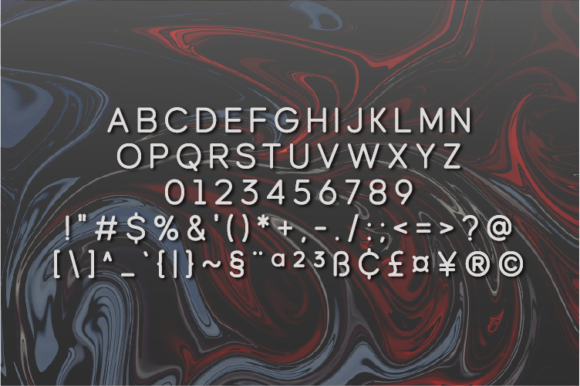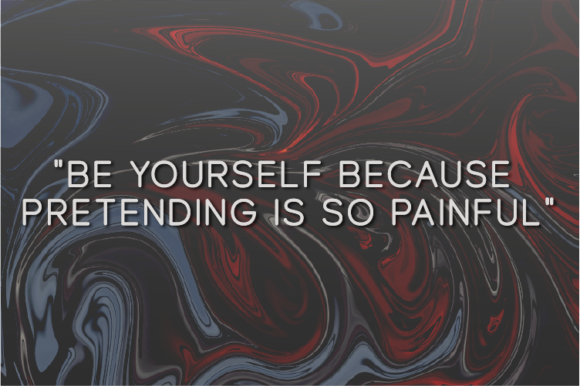
Introduction to Roterline Font
As a designer, there’s nothing quite like the rush of finding the perfect font for a creative project. You’ve spent hours pouring over design resources, searching for that elusive combination of style and substance that elevates your work to the next level. And then, it happens – you stumble upon a font that’s so clean, so crisp, and so effortlessly cool that you know you’ve found your new go-to.
Enter the Roterline Font, a stunning sans serif design that’s been making waves in the design community. With its thin lines and smooth curves, this font is a masterclass in understated elegance, making it the perfect choice for logos, branding, and web headings where a clear, transparent background is essential.
Key Features of Roterline Font
- High-quality design resource suitable for creative projects, with a unique and stylish aesthetic.
- Designed to be highly legible and versatile, making it suitable for a wide range of creative projects, from logos to typography.
Honest Review: Roterline Font
I recently came across the Roterline Font, a design resource that I was excited to try out for my next creative project. Overall, I was pleased with the quality of the font, but as with any design element, it’s not perfect.
What works well: ✨ The Roterline Font has a unique, modern design that’s perfect for headings and titles. The transparent background option is also a plus, allowing for easy layering and customization. The font is available for free download, making it an excellent choice for designers on a budget.
- High-quality design with a modern feel
- Transparent background option for easy customization
Overall, I’m impressed with the Roterline Font, and I would recommend it to designers looking for a high-quality, modern font for their creative projects. Just be aware of the limitations and test it thoroughly before using it in a production environment.
Tips for Getting the Most Out of Roterline Font
Roterline Font is perfect for creating logos, graphics, and titles for your design project. It’s also ideal for creating social media posts, business cards, and brochures. With its high quality design and transparent background, Roterline Font is a valuable design resource for any creative project.